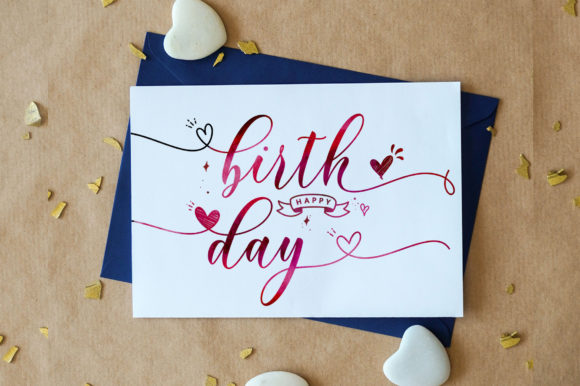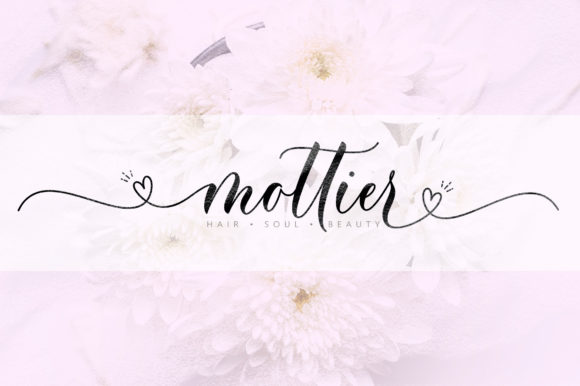
Roselya Script Font Font
db-ku.com - Script & Handwritten -- Roselya Script is a romantic and sweet calligraphy typeface with characters that dance along the baseline. It will add a luxury spark to any design project that you wish to create! This font is PUA encoded which means you can access all of the amazing glyphs and ligatures with ease!